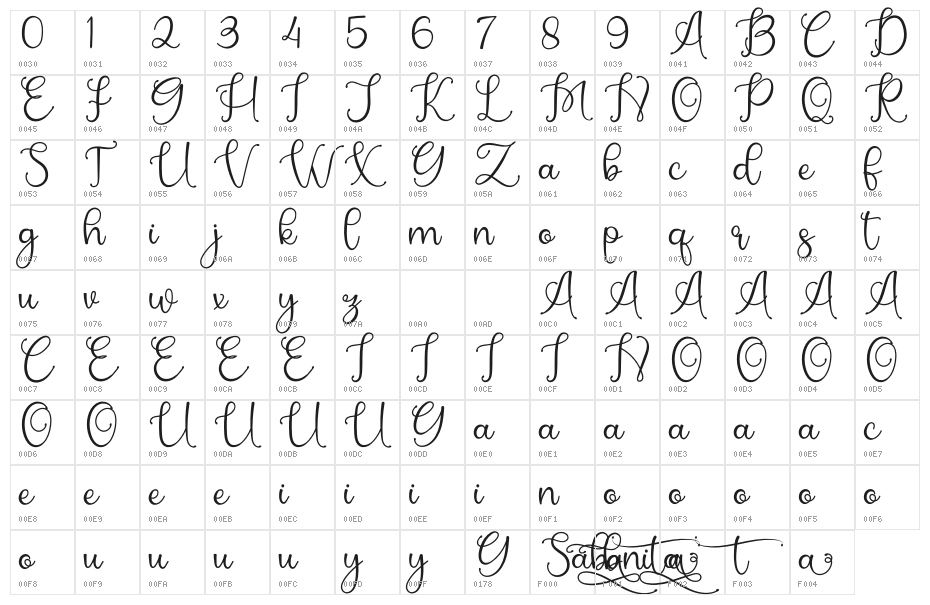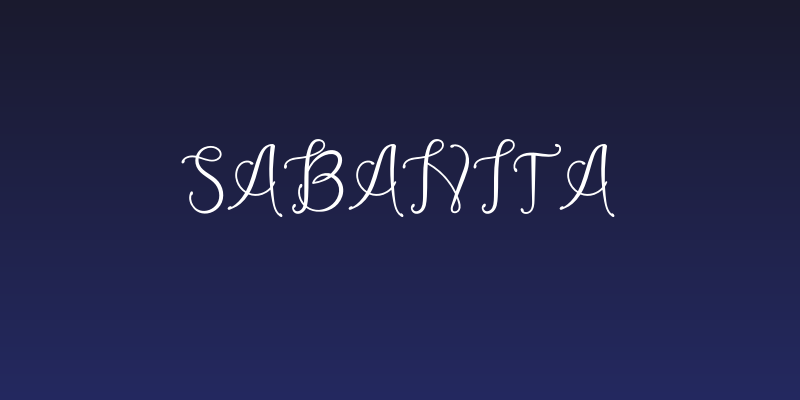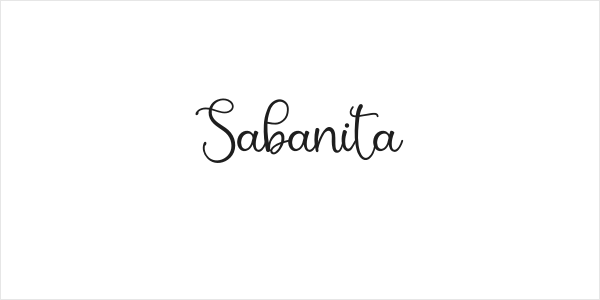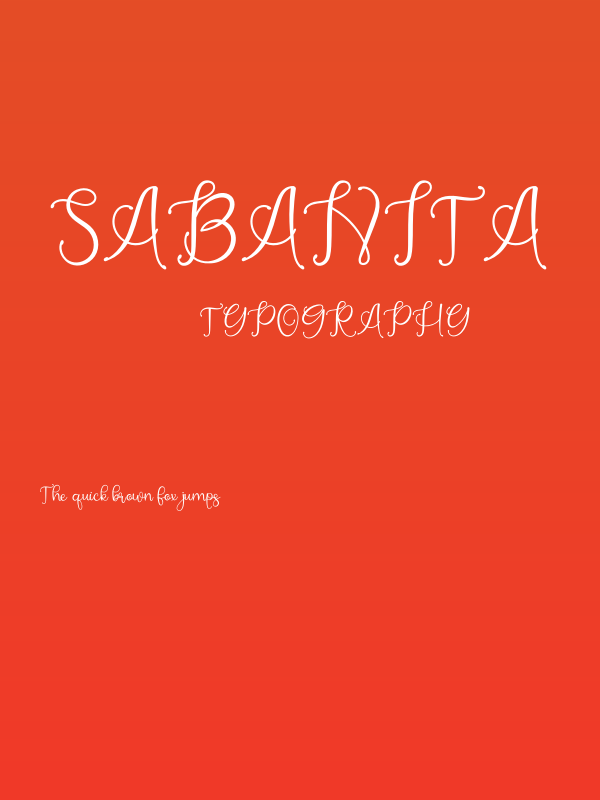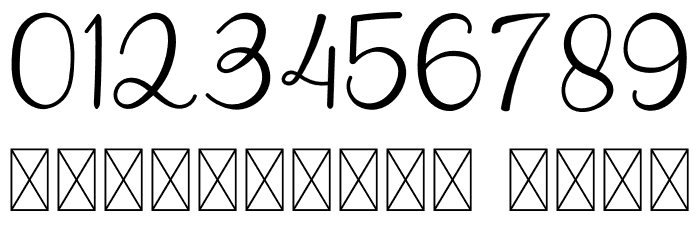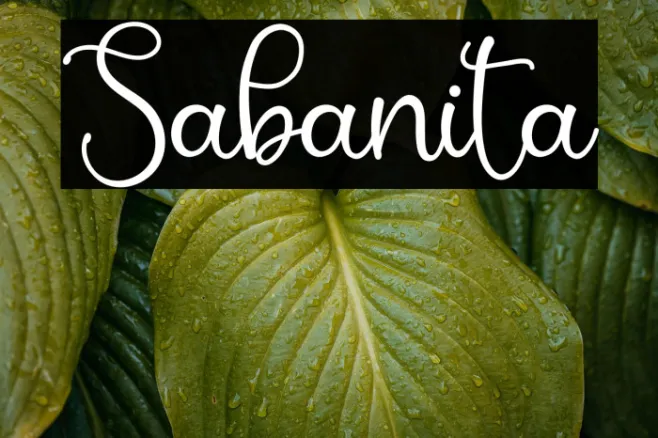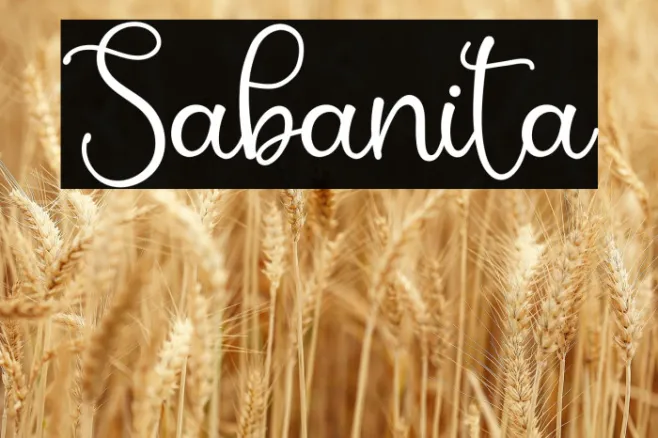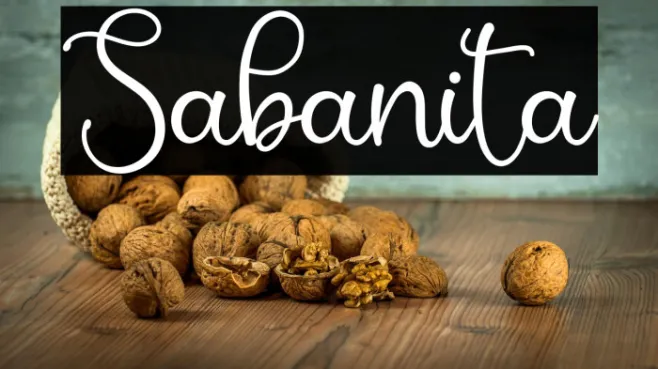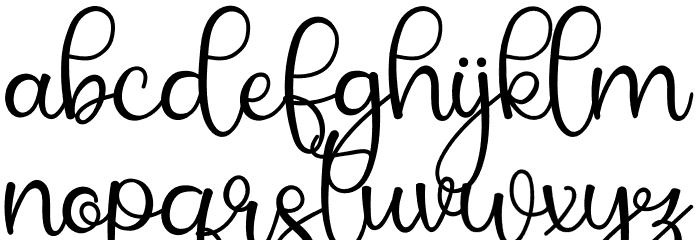
Sabanita Font
Sabanita Description
This font features a playful and elegant script style with a handwritten touch. The uppercase letters are characterized by their flowing, interconnected strokes, giving a sense of continuity and fluidity. The lowercase letters maintain a similar style, with some letters featuring unique loops and curls that add a whimsical flair. The numerals are consistent with the overall design, incorporating slight curves and maintaining readability. The special characters are creatively integrated, matching the playful yet sophisticated aesthetic. This font is perfect for projects that require a personal, artistic touch, such as invitations, greeting cards, or branding materials that aim to convey elegance and creativity.